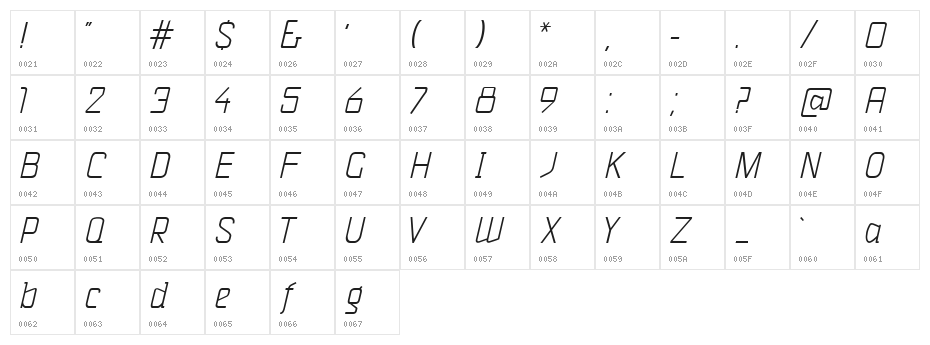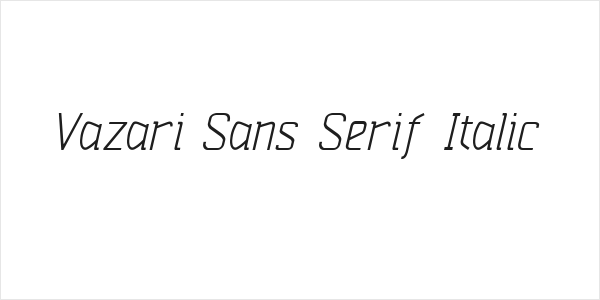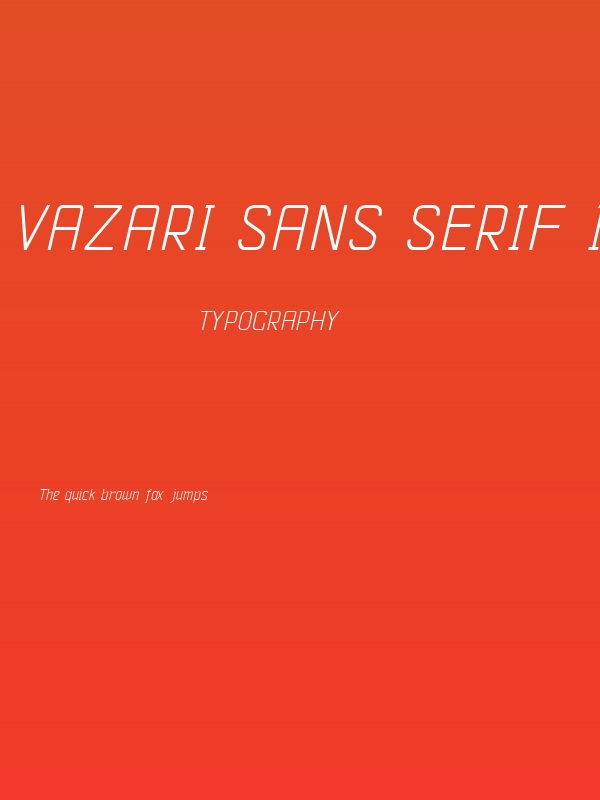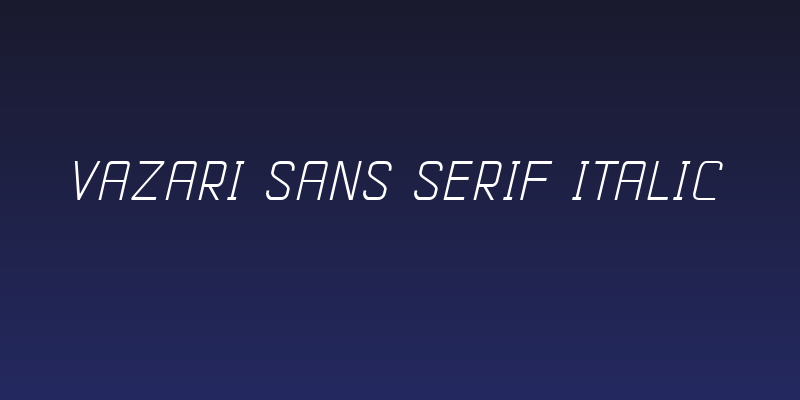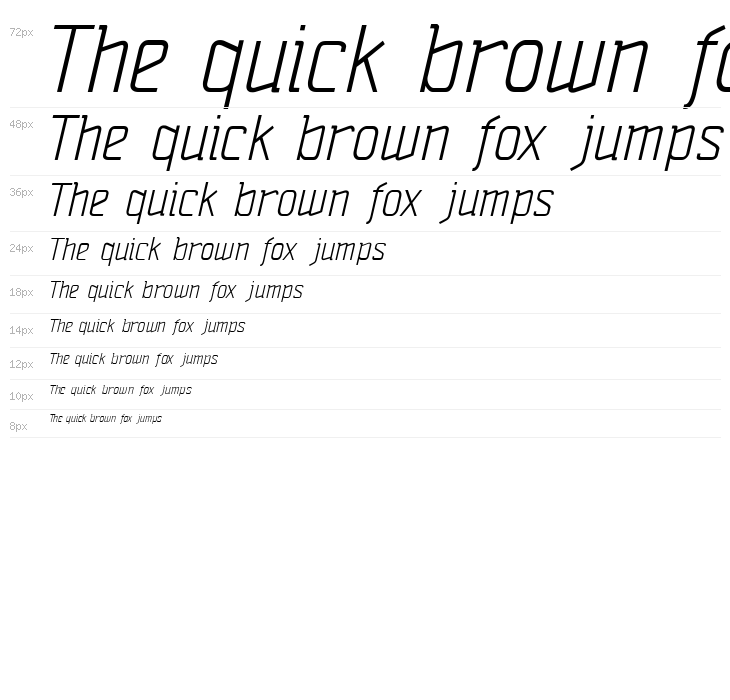
Vazari Sans Serif Italic Font
Vazari Sans Serif Italic Description
This font features a sleek and modern sans-serif design with a distinct italic slant, giving it a dynamic and forward-leaning appearance. The characters are clean and geometric, with a consistent stroke width that maintains a uniform look across all letters and numbers. The uppercase and lowercase letters are well-proportioned, providing a harmonious balance. The numerals are clear and easy to read, making them suitable for various applications. Special characters are included, maintaining the same stylistic consistency. The overall design is minimalistic yet expressive, making it versatile for a range of design projects.